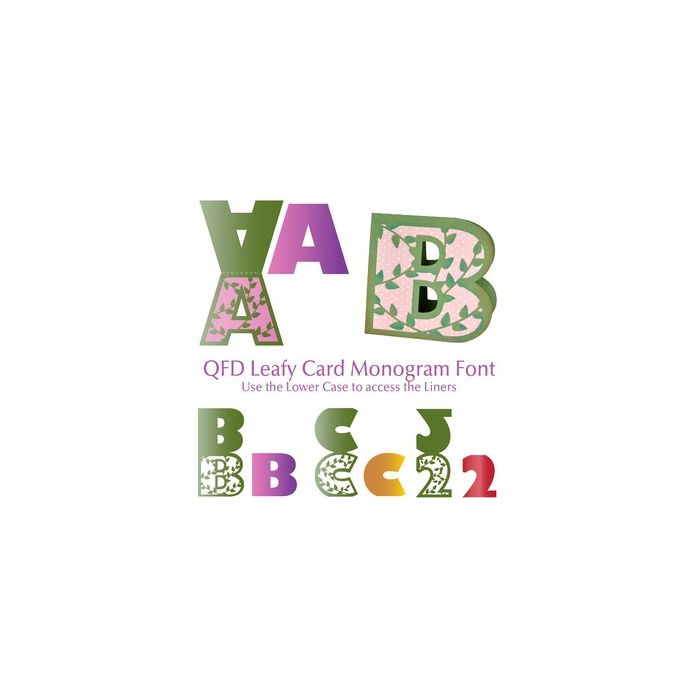
qfd leafy card monogram font
It’s a card!!! Here is a monogram font that cuts into a letter-shaped *card*! Simply cut in the colours of your choice and fold! Use the lower case letters to get the corresponding liner for the letter. (Make sure you resize both at the same time before cutting.) For the numbers’ liners, press the Shift key and hit the number to access the corresponding liner. Use them on their own or make a cool banner with the letters. Combine them with other Quietfire Card Monogram Fonts, too. If you have any questions, please feel free to contact me!